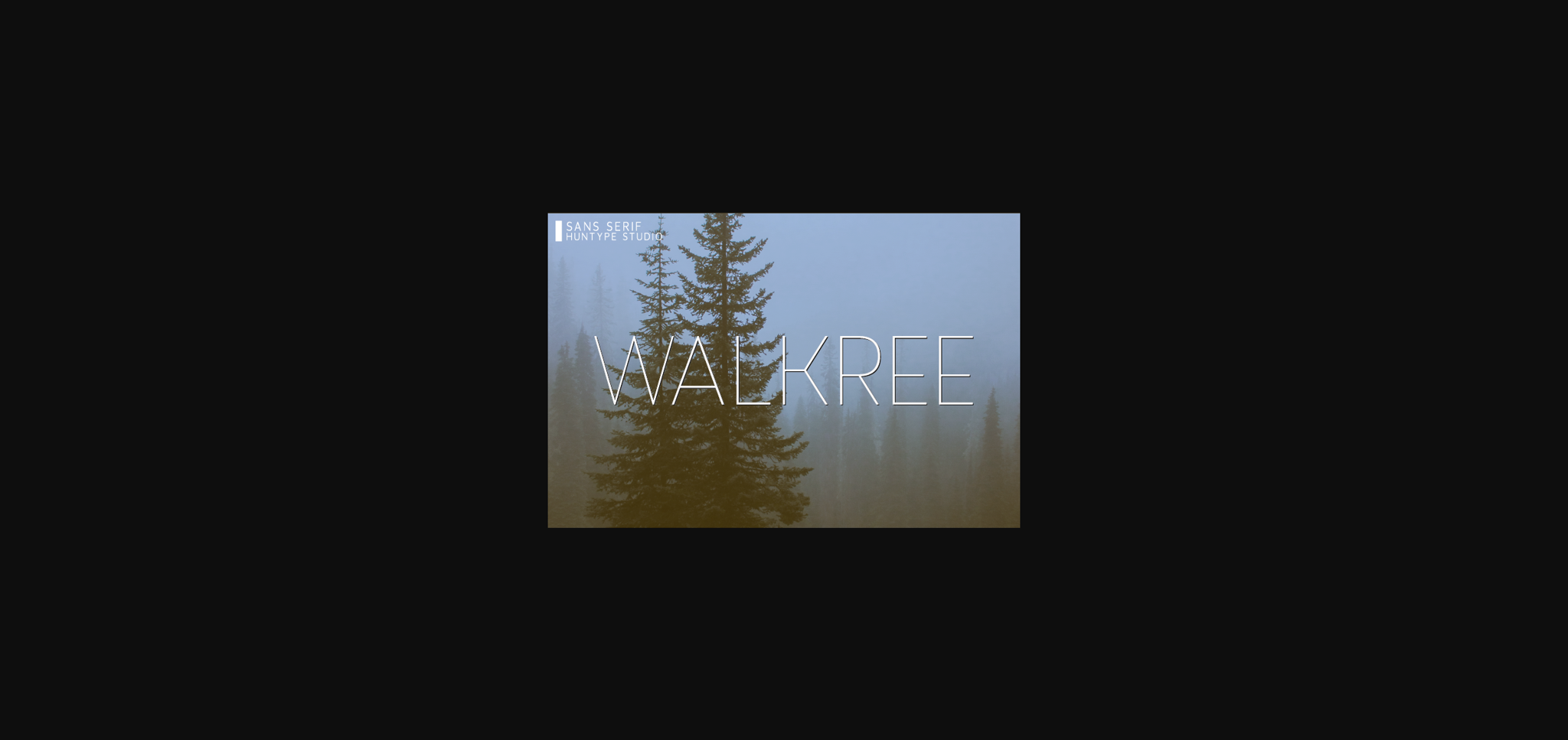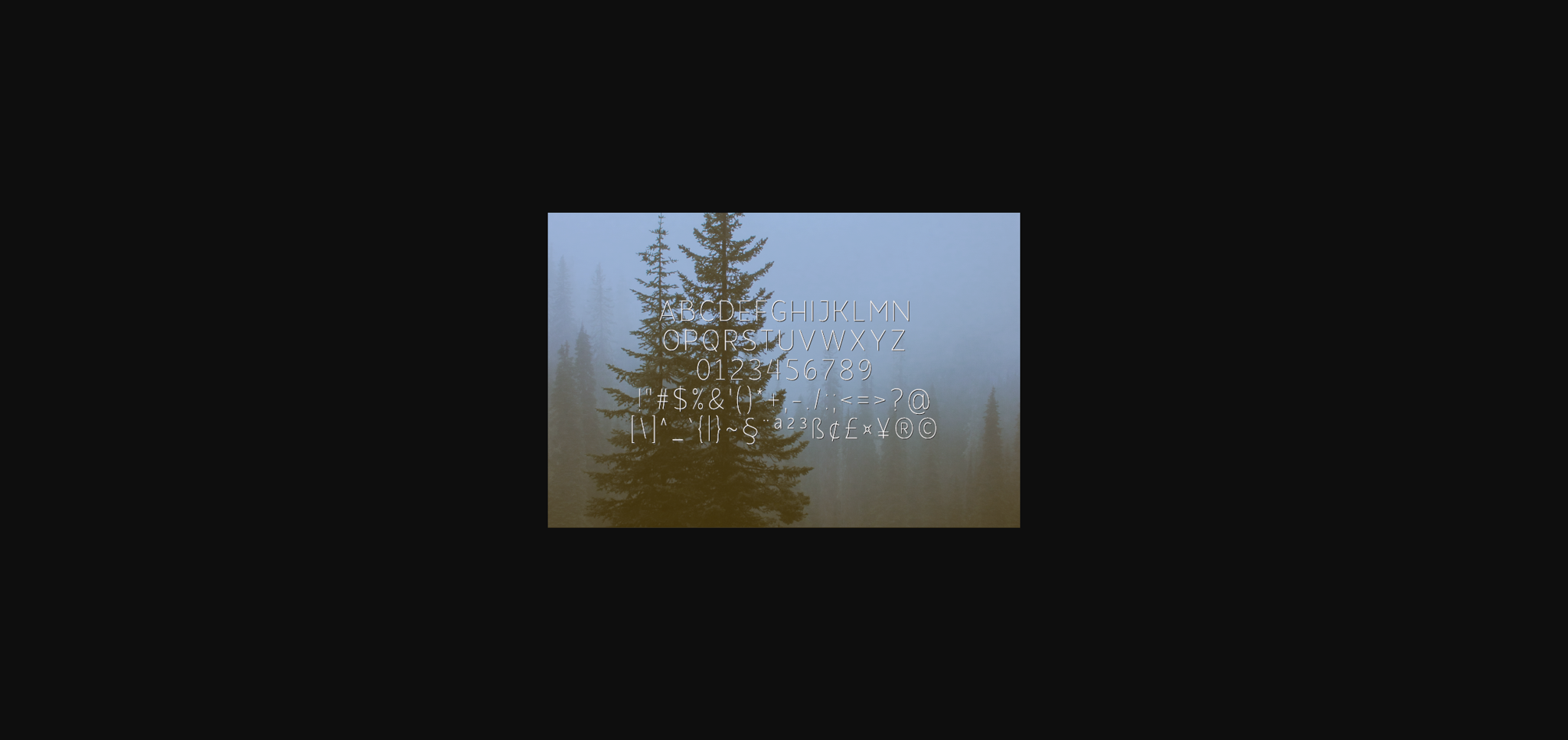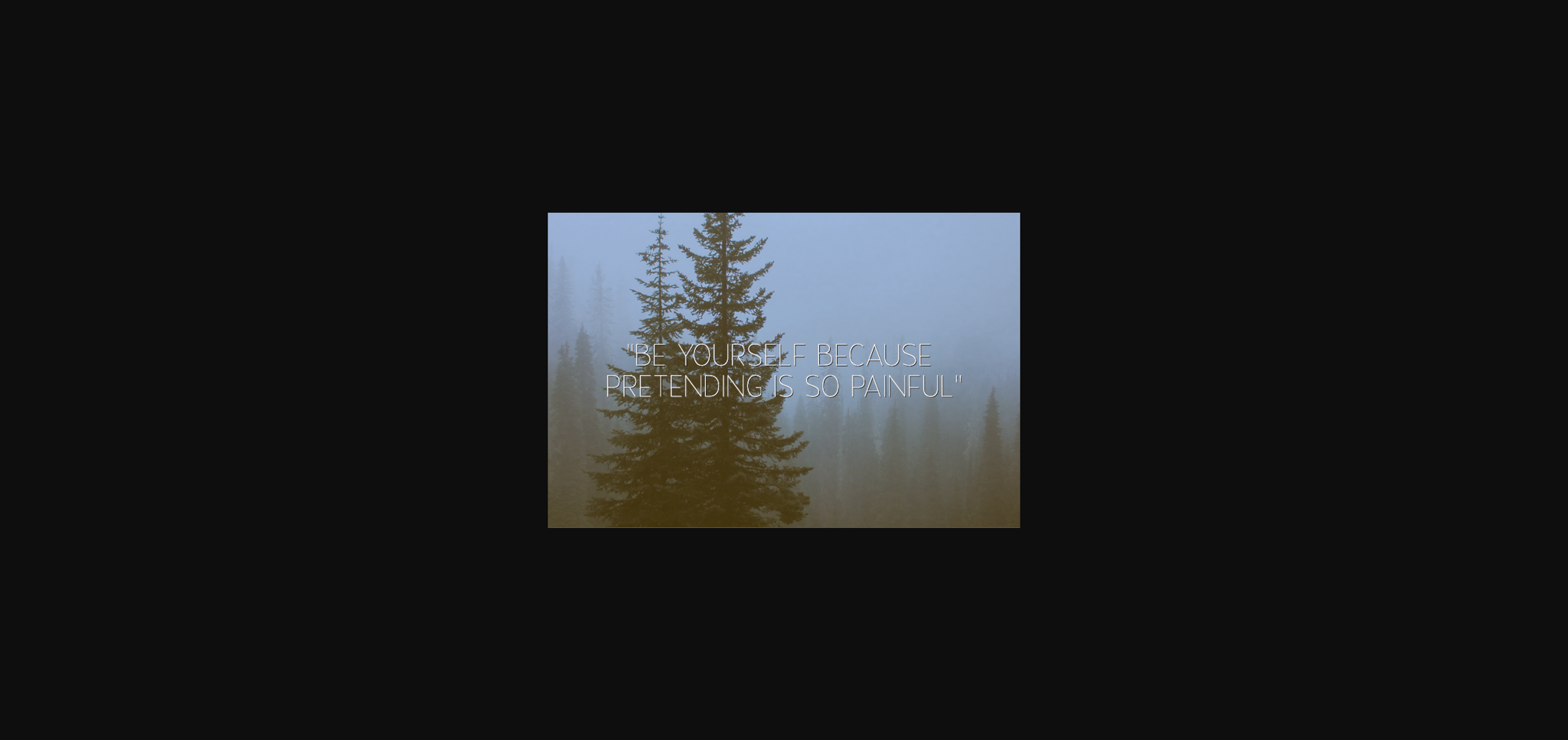
About Walkree Font
Walkree is a minimal, thin and tall lettered sans serif font. Suitable to a wide range of projects due to its neat and simple style, Walkree has the potential to become your favorite go-to font, no matter the occasion!